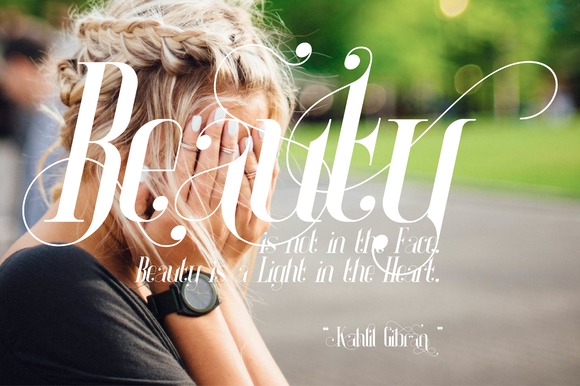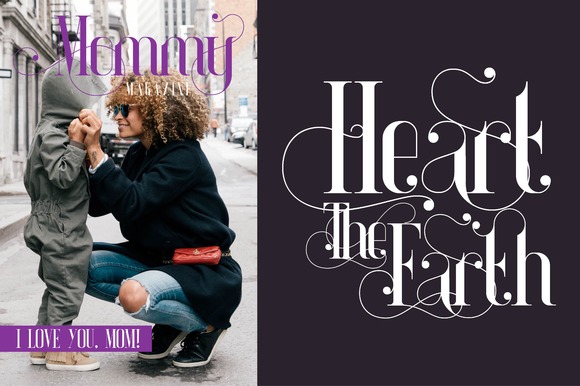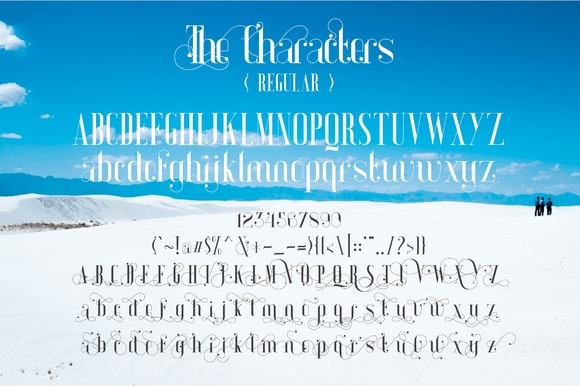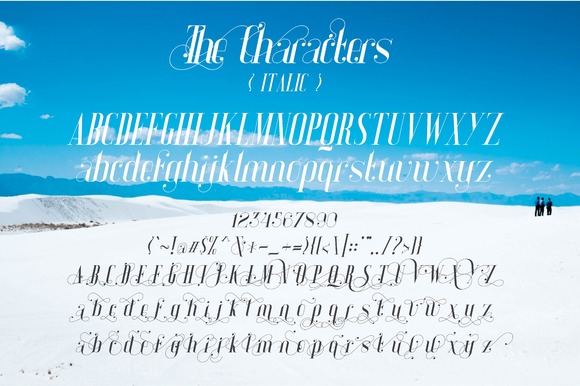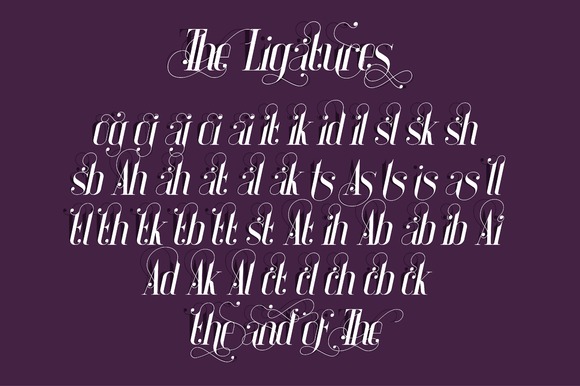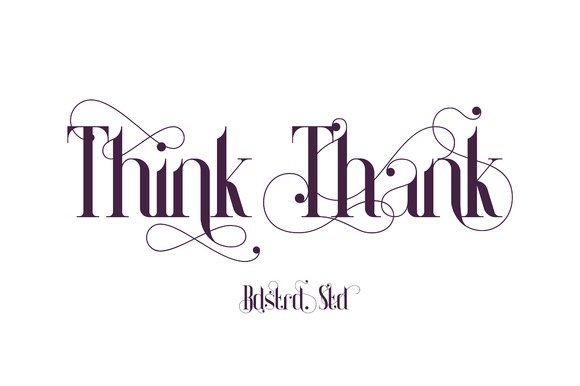
Introducing Amira Beauty Font: Elevate Your Designs with Elegance
In the world of typography, a new font has emerged that is set to capture the hearts of designers and crafters alike. Amira Beauty Font is a modern, elegant, and unique typeface that can elevate any design project to new heights. Inspired by the exotic beauty of a flower that grows only in the highlands of Indonesia, this font is a true masterpiece.
The Inspiration Behind Amira Beauty
The Amira Beauty Font draws its inspiration from a rare and exquisite flower found in the highlands of Indonesia. This flower, known for its delicate petals and intricate details, has been the muse behind the creation of this stunning font. The designer aimed to capture the essence of this natural wonder and translate it into a typographic form that exudes elegance and sophistication.
Key Features of Amira Beauty Font
Amira Beauty Font boasts a range of features that make it an ideal choice for designers and crafters. Some of its key characteristics include:
- Modern and Elegant: The font’s sleek and refined design makes it perfect for projects that require a touch of sophistication.
- Unique and Distinctive: Amira Beauty Font’s unique shape and structure set it apart from other fonts, making it an excellent choice for designers looking to create something truly original.
- Highly Versatile: This font can be used in a wide range of design projects, from branding and advertising to packaging and digital media.
- Easy to Read: Despite its elegant design, Amira Beauty Font remains highly legible, making it suitable for use in body text as well as headlines.
Use Cases for Amira Beauty Font
The versatility of Amira Beauty Font makes it an excellent choice for a variety of design projects. Here are some use cases where this font can shine:
- Branding and Logo Design: Create a lasting impression with Amira Beauty Font, perfect for logos, business cards, and brand identity materials.
- Wedding and Event Design: Add a touch of elegance to wedding invitations, menus, and other event materials with this beautiful font.
- Packaging Design: Stand out on store shelves with Amira Beauty Font, ideal for product packaging and labeling.
- Digital Media: Use this font in social media graphics, blog posts, and website designs to add a touch of sophistication.
Tips for Using Amira Beauty Font
To get the most out of Amira Beauty Font, here are some tips to keep in mind:
- Pair with Neutral Colors: Let the font be the star of the show by pairing it with neutral colors like white, black, or pastel shades.
- Experiment with Font Sizes: Play around with different font sizes to create visual hierarchy and add emphasis to important text.
- Add Decorative Elements: Enhance your design with decorative elements like illustrations, patterns, or textures to complement the font.
| Font Name | Amira Beauty Font |
| Author | Bdstrd Std |
Amira Beauty Font is a stunning typeface that can elevate any design project with its modern, elegant, and unique charm. Inspired by the beauty of a rare Indonesian flower, this font is sure to captivate designers and crafters alike. With its versatility, legibility, and aesthetic appeal, Amira Beauty Font is an excellent addition to any design toolkit.